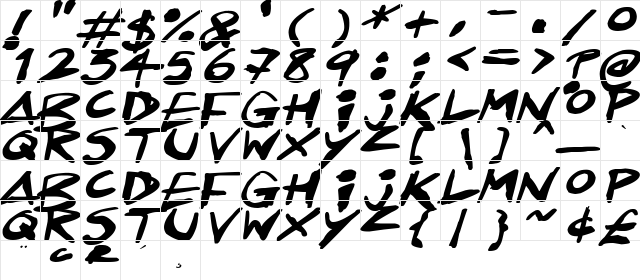
Inkling Italic
Design Context for Inkling Typeface
Inkling is a composed and adaptable typeface that performs quietly and consistently across a wide range of design contexts. The slanted form adds forward momentum and visual energy.
Pro Tip: Try Inkling for annotation and caption copy alongside an upright companion — the contrast in angle creates a dynamic but ordered typographic system.